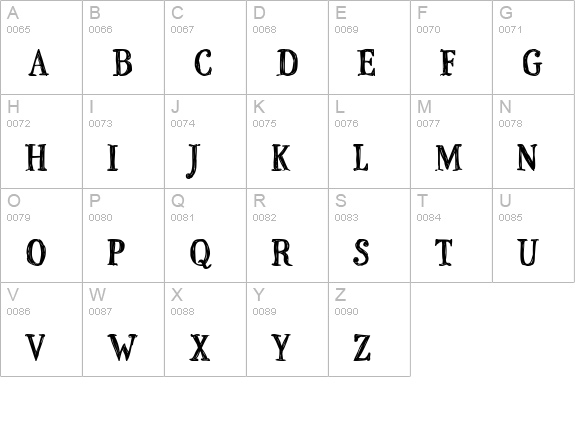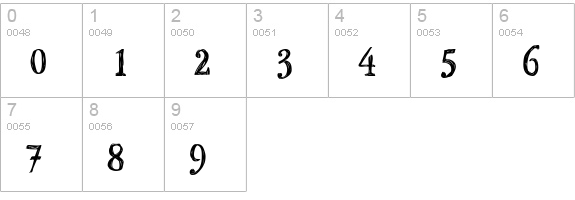
P22 Stanyan Bold is a strong, high-contrast variant in the P22 typeface family \xE2\x80\x94 well suited to headlines, attention-grabbing titles, and strong calls-to-action.
P22 Stanyan Bold font is a stunning and versatile typeface that exudes confidence and elegance. Its bold and powerful letterforms make a bold statement while maintaining a sense of sophistication. This font is perfect for headlines, logos, and branding materials that need to grab attention and leave a lasting impression. The P22 Stanyan Bold font is characterized by its strong and consistent strokes, giving it a modern and timeless appeal. Each letter is meticulously crafted with attention to detail, resulting in a typeface that is both visually appealing and highly readable. What sets P22 Stanyan Bold font apart is its accessibility - it is freely available to download at FontsMarket.com. This means that designers and creatives can easily incorporate this font into their projects without any financial constraints. Whether you're a professional designer or a hobbyist, you can take advantage of this exceptional font to elevate your work to new heights. With its wide range of characters, including uppercase letters, lowercase letters, numerals, and punctuation marks, the P22 Stanyan Bold font offers endless possibilities for creative expression. Its versatility allows it to be used in a variety of design contexts, from print materials to digital platforms. Whether you're designing a magazine layout, creating a striking poster, or developing a sleek website, the P22 Stanyan Bold font will undoubtedly make your designs stand out. Its bold and commanding presence will captivate your audience and leave a lasting impression. Don't miss the opportunity to enhance your design projects with the P22 Stanyan Bold font. Download it for free at FontsMarket.com and experience the power and beauty of this exceptional typeface.